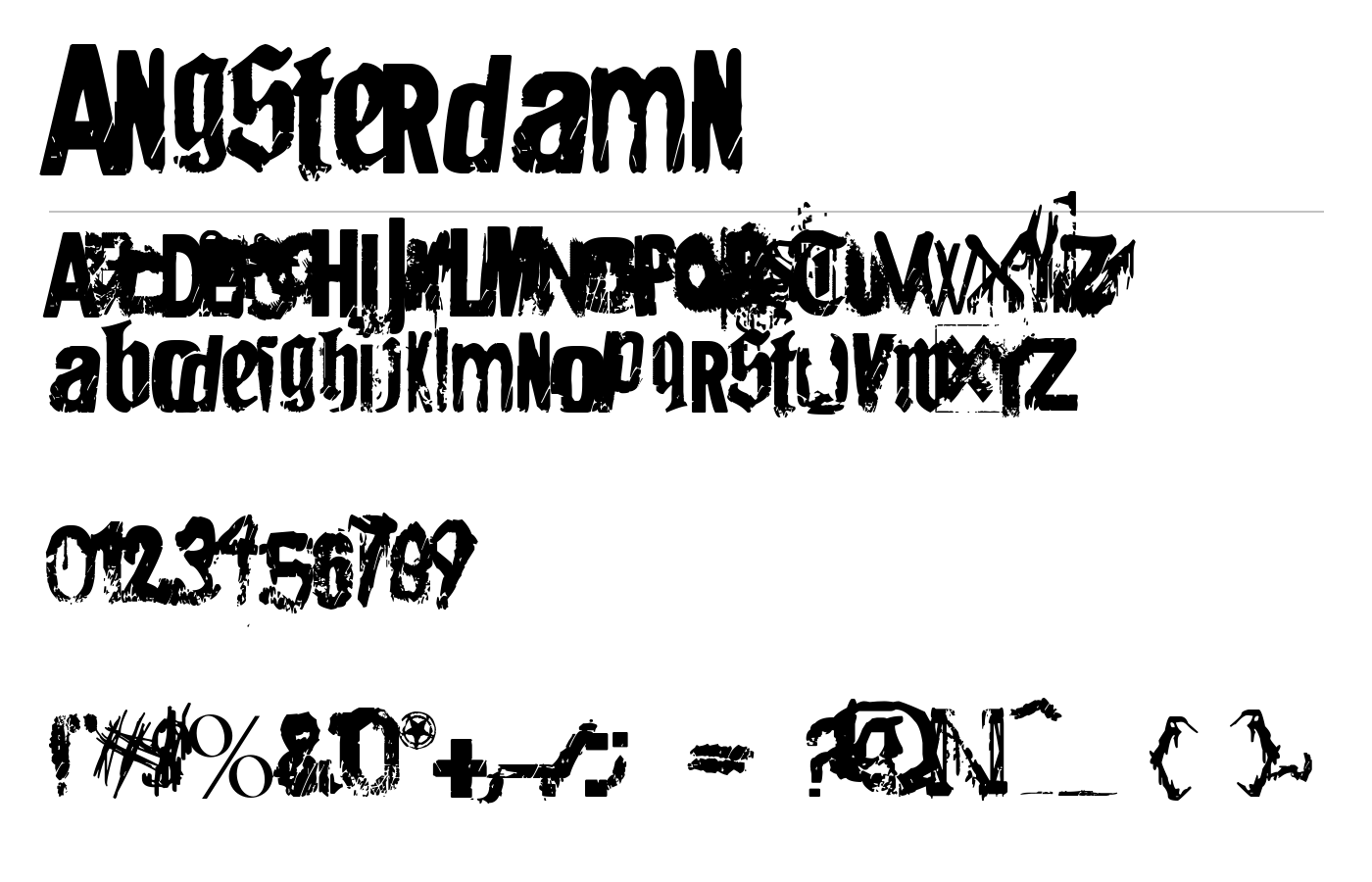
Angsterdamn is a bold, distressed display font characterized by its grungy, textured strokes that give a raw, edgy feel. With condensed proportions and rough, uneven edges, it conveys a rebellious and urban vibe, making it perfect for alternative branding, posters, and music or streetwear designs that seek a strong, expressive presence. This font’s chaotic style works best in large sizes where its gritty details can stand out and add a striking visual impact.
Angsterdamn Font
About Angsterdamn Font